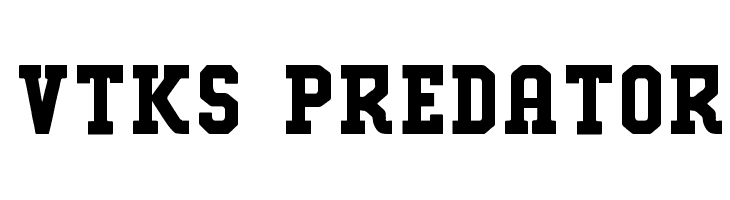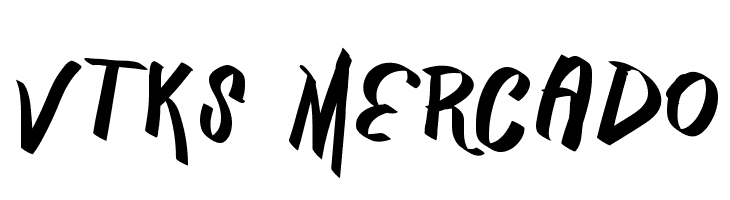
A bold, italic serif font with strong strokes and a dynamic, classic appearance.
A bold serif typeface with high contrast and classic appeal.
A bold, modern serif font with strong, confident letterforms.
A modern serif font with elegant curves and balanced stroke contrast.
An elegant italic serif font with a classic yet contemporary style.
A bold, italic serif font with a modern yet classic appeal.
A dynamic and expressive cursive script font with fluid connections.
An elegant, cursive handwritten font with a fluid and artistic style.
A bold, dynamic script font with a hand-drawn, energetic style.
A bold slab serif font with strong, block-like serifs and a modern yet classic style.